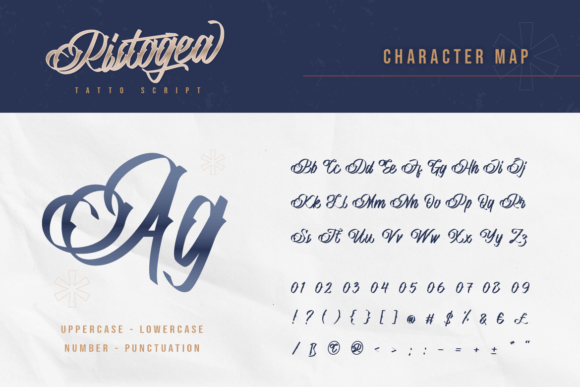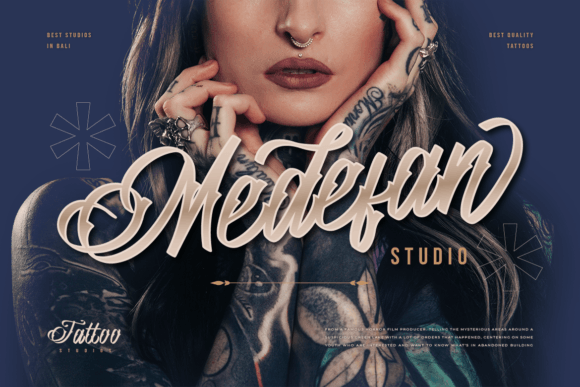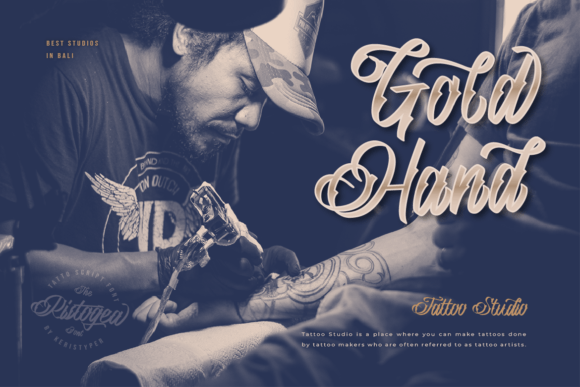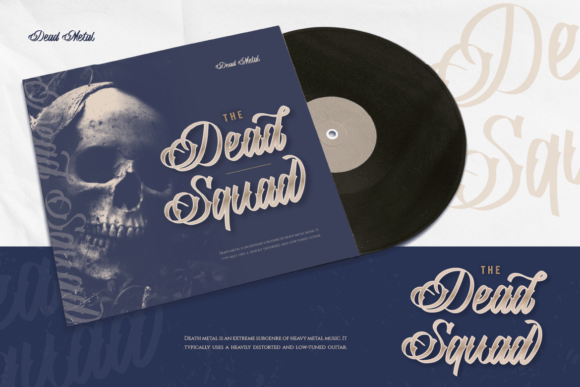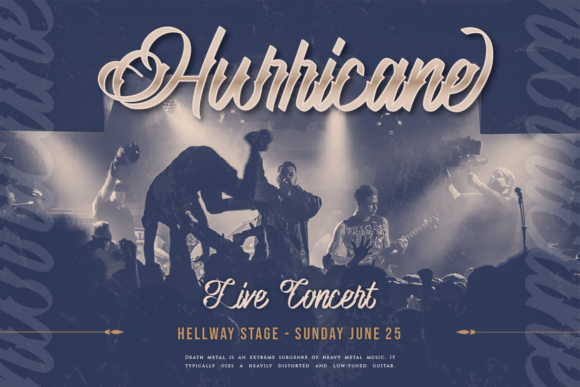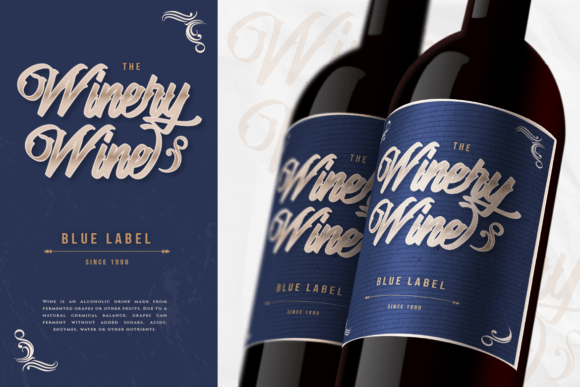
Introduction to Ristogea Font
As designers, we’ve all been there – staring at a blank canvas, searching for that perfect font to bring our creative vision to life. The moment of inspiration hits, and you envision the perfect combination of style, elegance, and edge. For those who dare to be different, the Ristogea Font is about to become your new best friend. This script font is a game-changer, inspired by the art of tattoo lettering with a unique swirl curvy effect that sets it apart from the rest.
Whether you’re a seasoned designer or a newcomer to the world of creative projects, the Ristogea Font is a valuable addition to your design resource arsenal. With its high-quality, transparent background, and versatility in applications, this font is perfect for branding, invitations, flyers, and more. And the best part? You can download it for free, giving you the freedom to experiment and push the boundaries of your design.
Key Features of Ristogea Font
- This high-quality font features a unique, elegant design with a transparent background, allowing for seamless integration with various backgrounds.
- The font is available in 2 styles, each with a unique set of characters, including uppercase and lowercase letters, numbers, and special characters.
- Ristogea Font is designed to work at high resolutions, making it perfect for use in print and digital applications, including business cards, logos, and signage.
- Ristogea Font is a unique design resource that can add a touch of elegance and sophistication to any creative project.
Honest Review: Ristogea Font
I recently had the chance to work with the Ristogea Font for a creative project, and I must say it was a great experience. This free download has quickly become one of my go-to design resources.
- ✨ What works well: The Ristogea Font has a high-quality design that makes it perfect for use in various creative projects. Its clean and modern aesthetic gives it a versatile appeal that can be used in a wide range of applications.
- ✨ What works well: The Ristogea Font is available in a transparent background option, which gives designers more flexibility when working with complex compositions.
⚠️ Limitations: One of the limitations of the Ristogea Font is its limited character set. While it’s perfect for headings and titles, it may not be the best choice for longer blocks of text.
Overall, I was impressed with the Ristogea Font. Its high-quality design and free download option make it a valuable resource for designers. While it may have some limitations, I would definitely recommend it for creative projects that require a modern and clean aesthetic.
Ristogea Font is ideal for creative projects, such as logo design, branding, and typography-based artwork. Its unique style and high-quality design make it a great addition to any project.
Tips for Getting the Most Out of Ristogea Font
To get the most out of Ristogea Font, experiment with different font sizes, colors, and combinations. Use it in conjunction with other design elements to create a visually appealing and cohesive look.